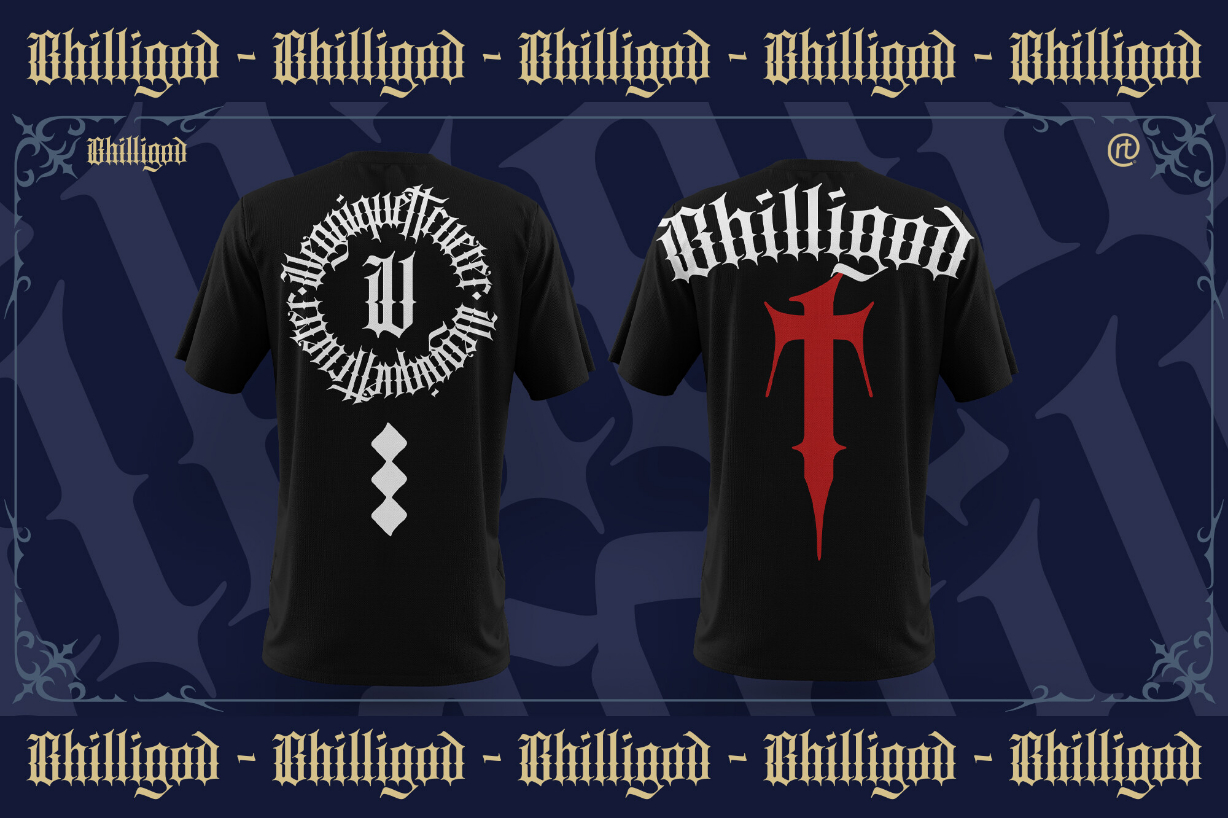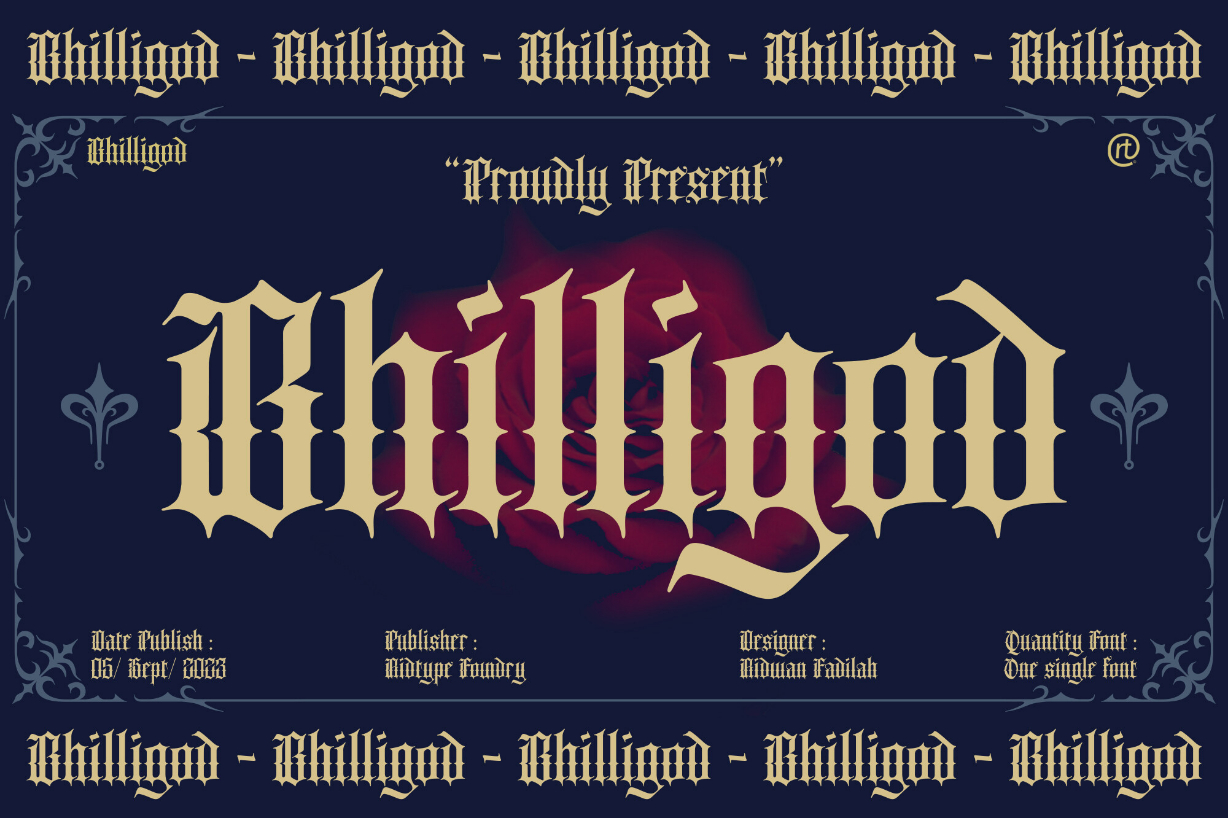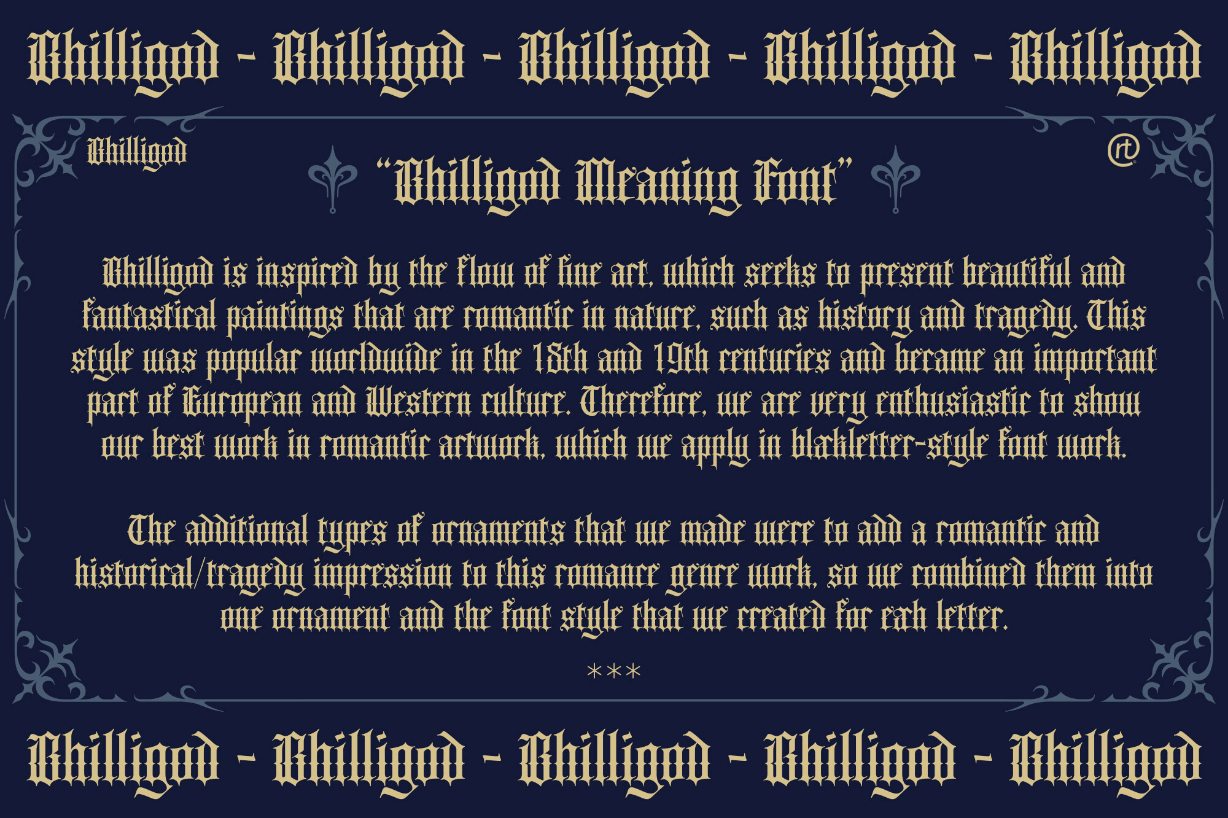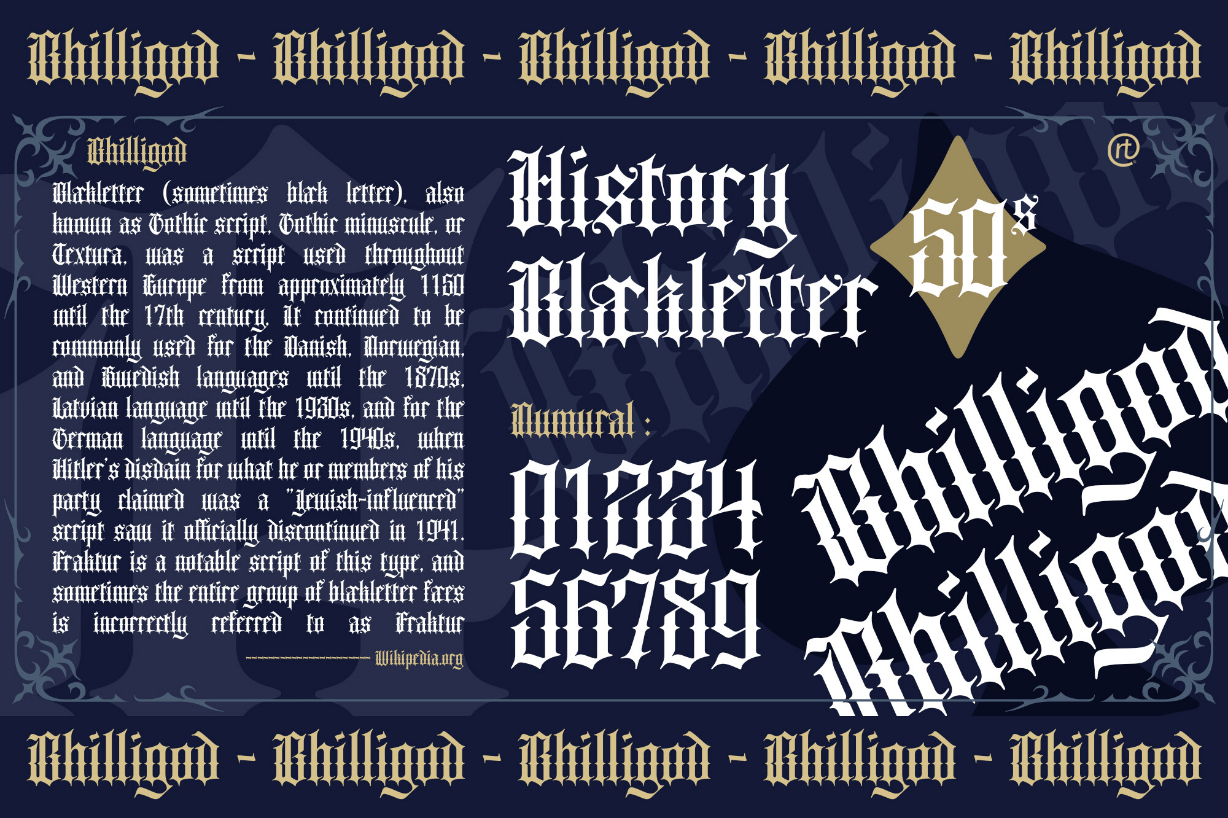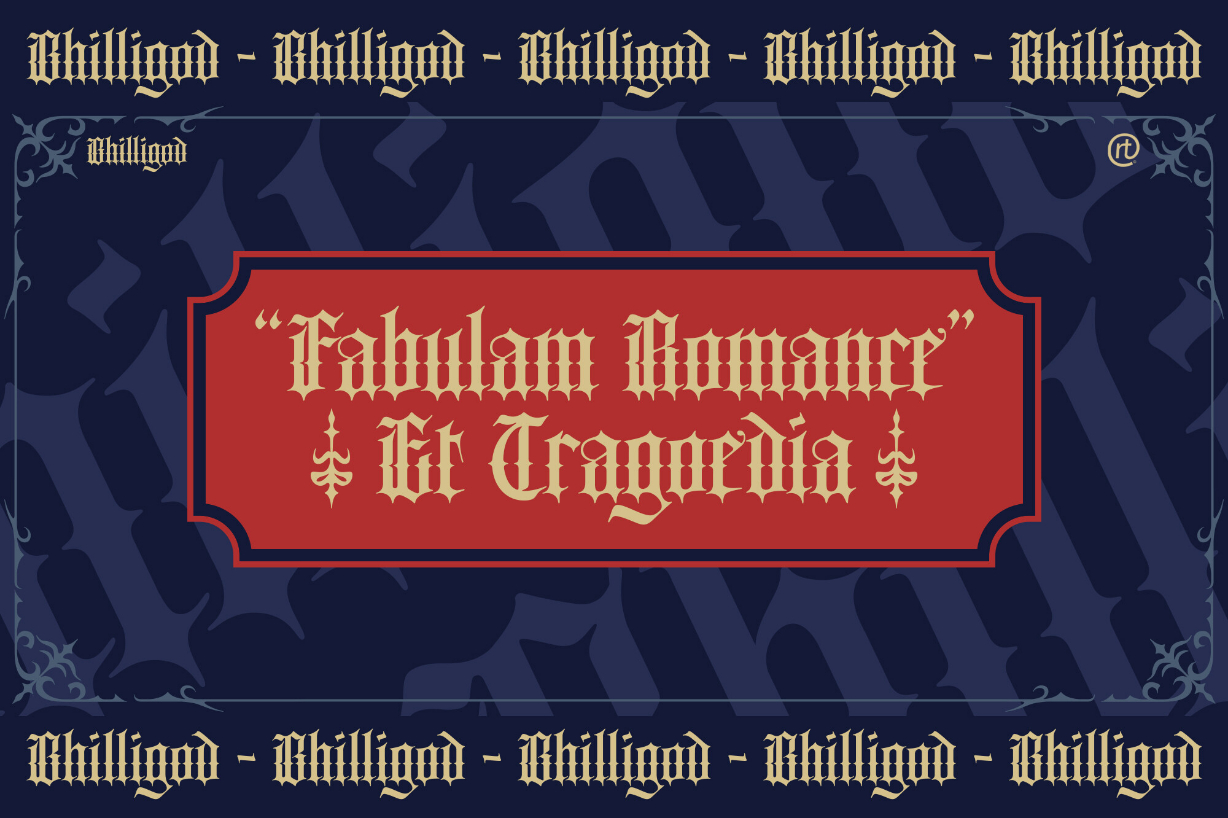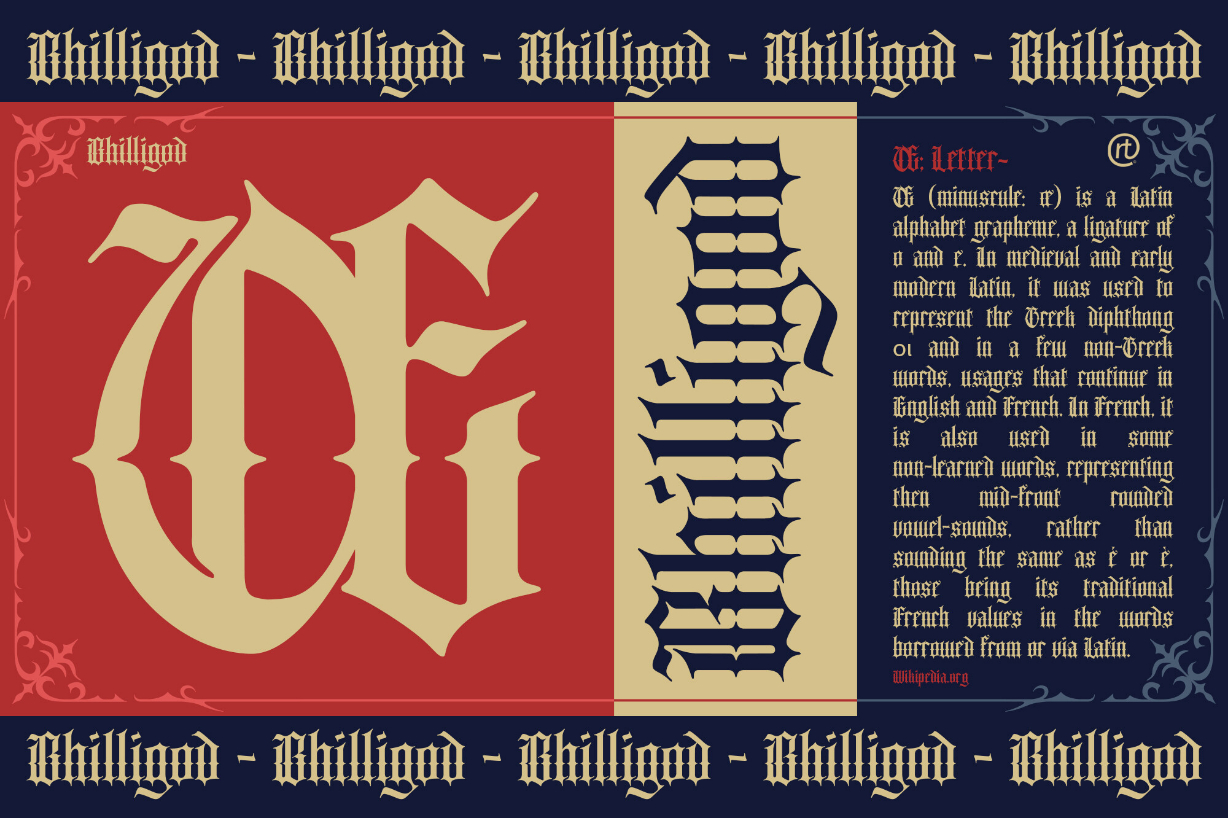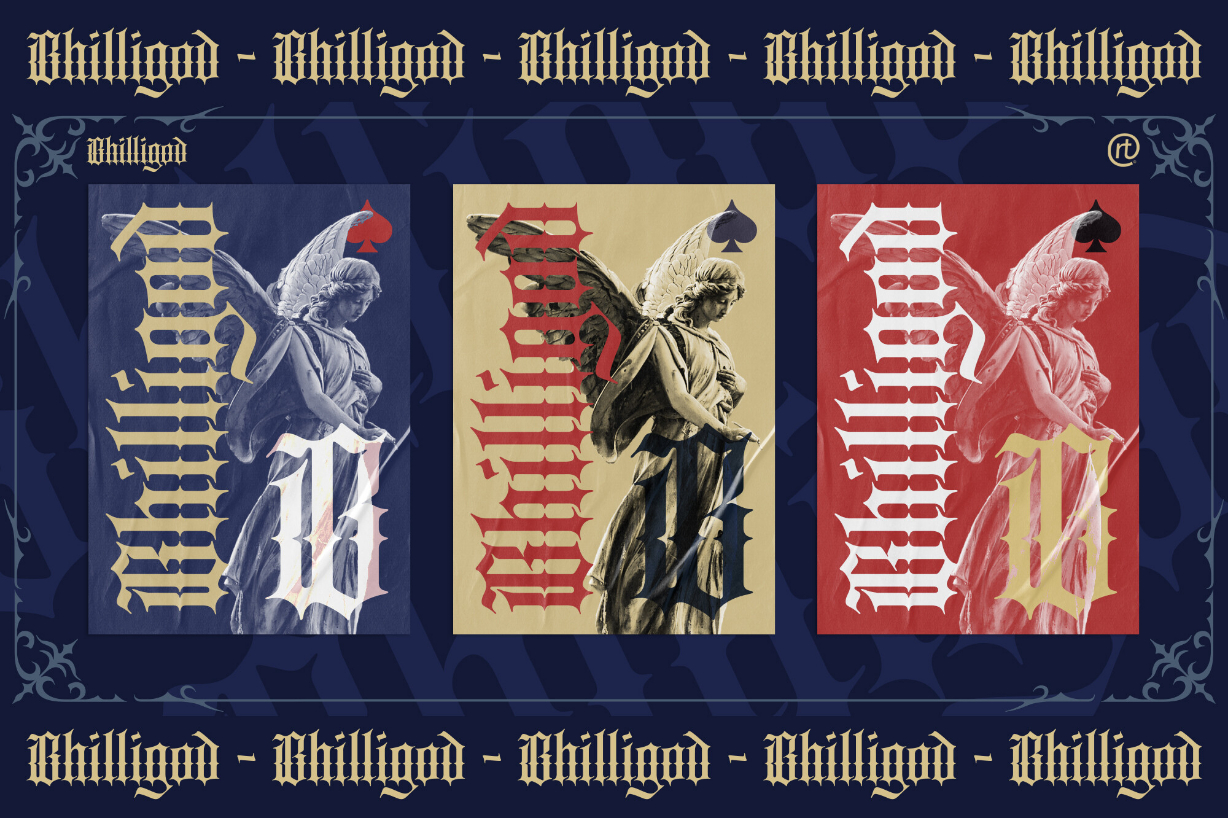
Bhilligod Font
About Bhilligod Font
Bhilligod is a bold and thick lettered blackletter font. Add it confidently to your projects, and you will love the results.